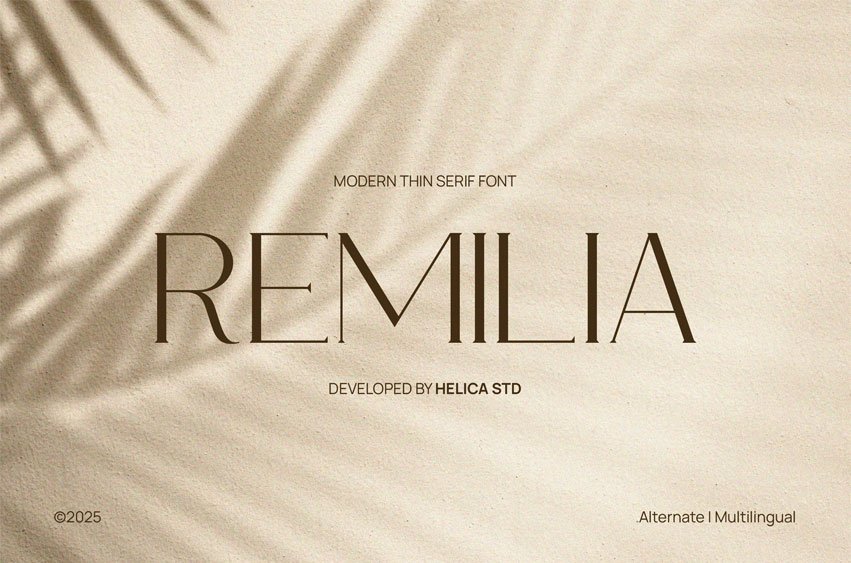
Remilia Font features a clean, high-contrast serif look with subtle elegance. Its minimalist aesthetic brings a refined touch to any visual composition.
Suitable for: Branding: Beauty and cosmetics, high-end fashion, jewelry, wellness, boutique services, luxury retail. Invitations: Weddings, formal events, premium product launches. Editorial: Fashion magazines, lifestyle blogs, and elegant portfolios. Logos: Brands aiming for a sleek, understated, and luxurious identity. Web Design: Clean, modern websites, especially for e-commerce in the luxury sector.